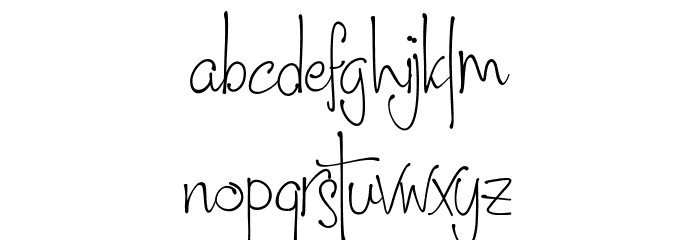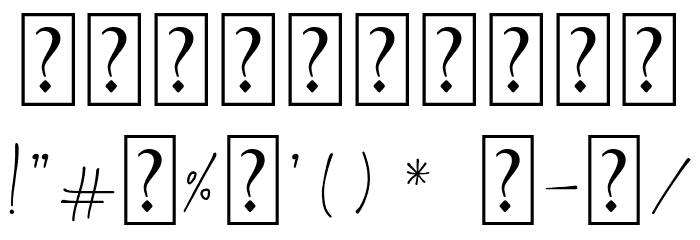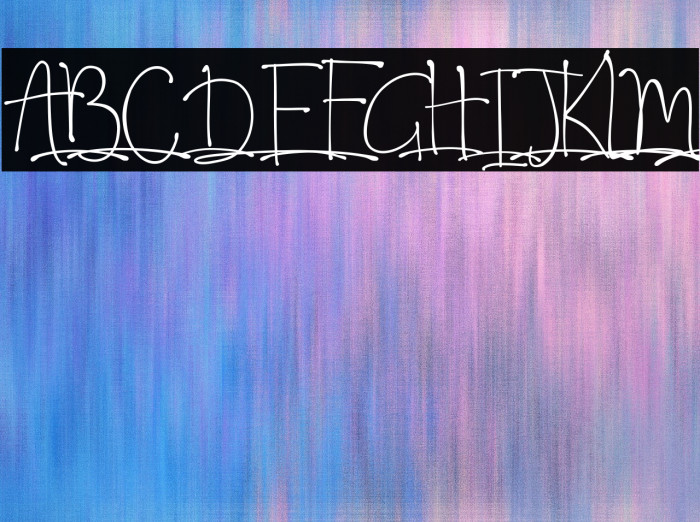
North City Font
This font features a whimsical and playful handwritten style, characterized by its tall, narrow letters with a slight slant. The uppercase letters are bold and dynamic, with exaggerated loops and curves that give them a lively appearance. The lowercase letters maintain a consistent flow, with elongated ascenders and descenders that add to the font's unique charm. The numerals are similarly styled, ensuring a cohesive look throughout. Special characters are creatively designed, maintaining the font's overall playful aesthetic. This font is ideal for projects that require a touch of personality and creativity.
A whimsical handwritten font with tall, narrow letters and playful curves.
- Font: North City
- Proposed Projects: Ideal for greeting cards, children's books, playful branding, and creative posters.
- Category: Handwritten
- Overall Style: Playful, Whimsical
- Use Case: Headlines, Creative projects, Branding